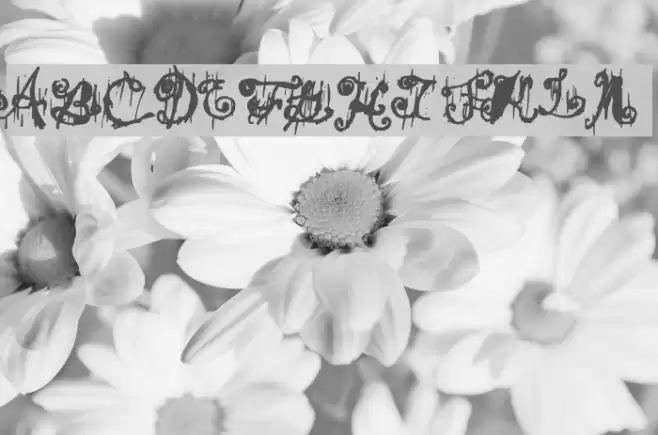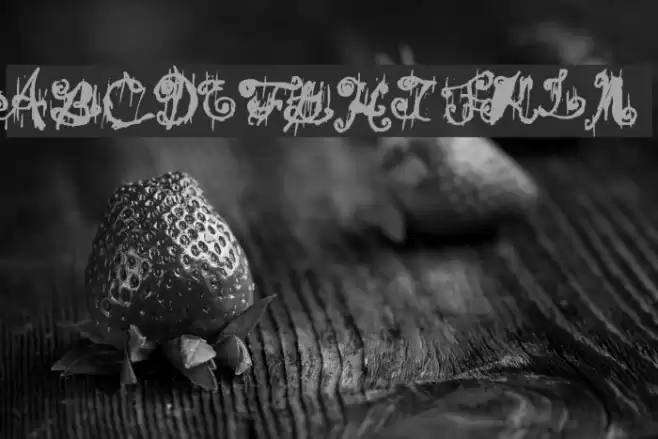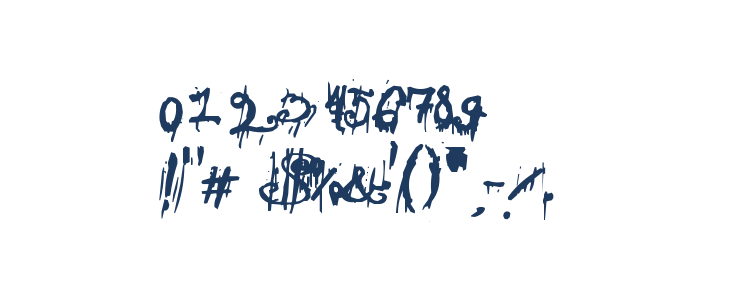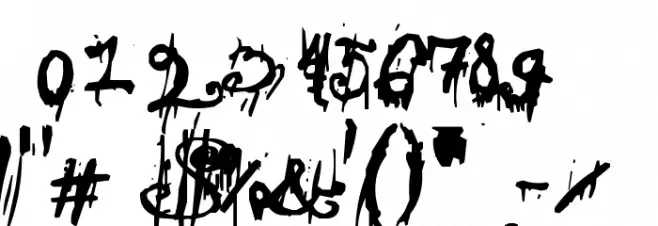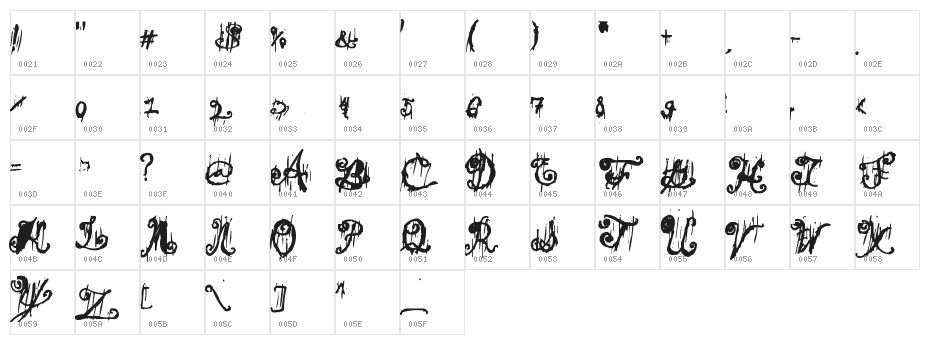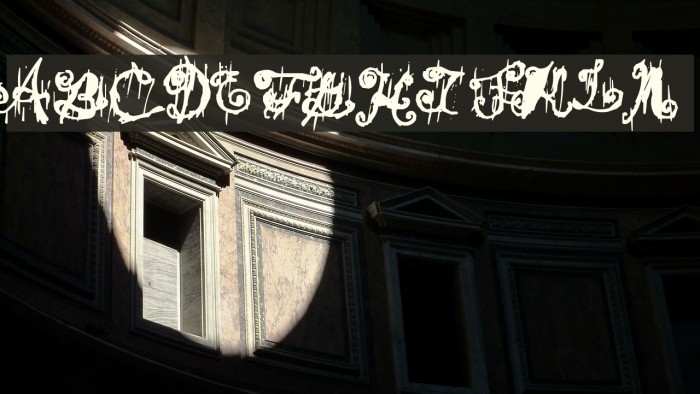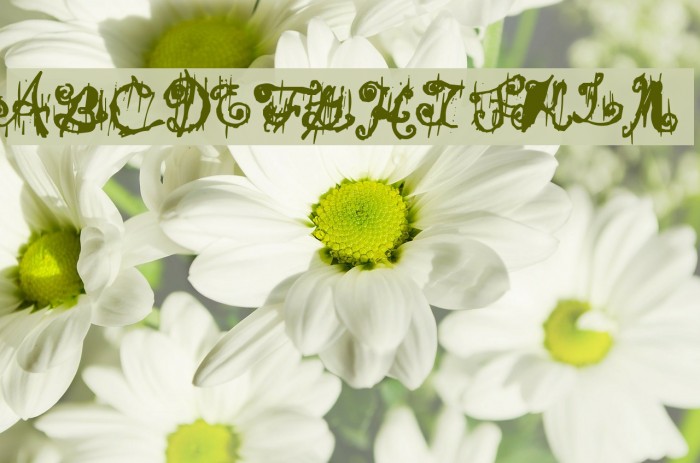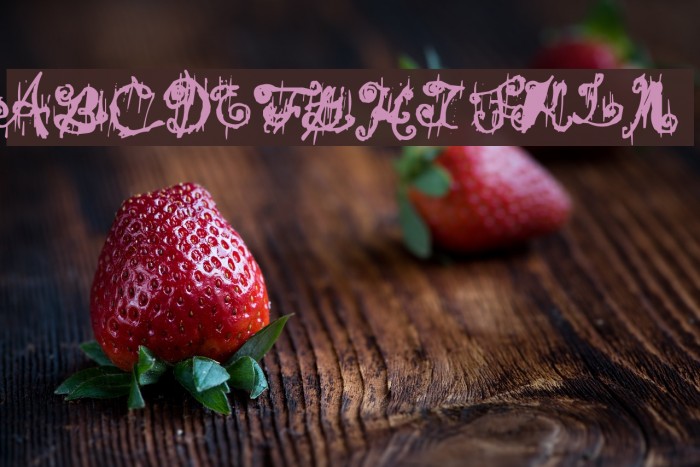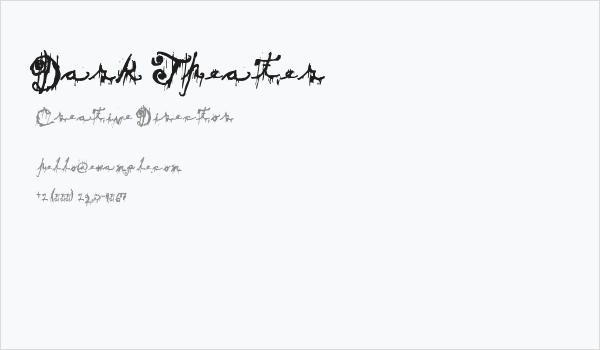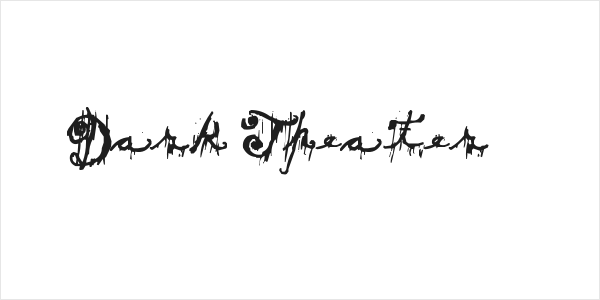
Dark Theater Font
Dark Theater Description
This font features a dramatic and theatrical style, characterized by its dripping, ink-like appearance. The letters are highly decorative, with exaggerated flourishes and a gothic, horror-inspired aesthetic. The uppercase letters are bold and intricate, while the lowercase letters maintain a consistent fluidity, adding to the overall eerie and mysterious vibe. Numbers and special characters follow the same design principles, making them suitable for thematic projects. The font's unique style makes it stand out, perfect for creating a sense of drama and suspense.
A dramatic, gothic font with a dripping, ink-like appearance from Handwritten fonts.
- Proposed Projects: Ideal for horror-themed posters, Halloween invitations, theatrical event promotions, and album covers.
- Overall Style: Gothic, Horror, Dramatic
- Use Case: Headlines, Posters, Thematic Designs